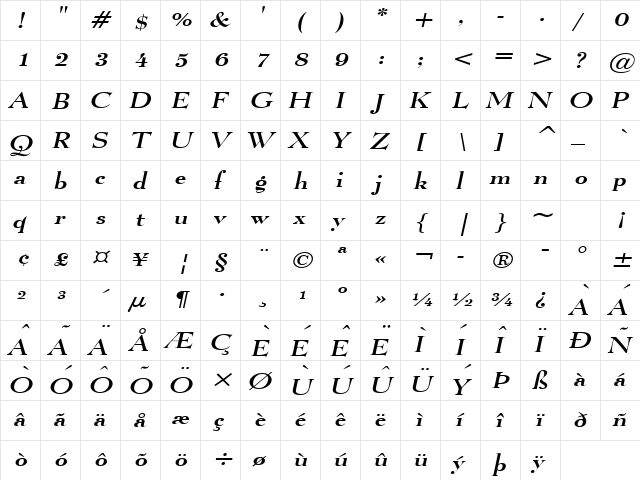
Luciano Wide Italic
Design Context for Luciano Wide Typeface
Luciano Wide is a composed and adaptable typeface that performs quietly and consistently across a wide range of design contexts. Its italic angle brings a sense of urgency and motion to the letterforms.
Pro Tip: Use Luciano Wide for emphasis, pull quotes, and subheadings where its slanted energy can add rhythm to the layout.